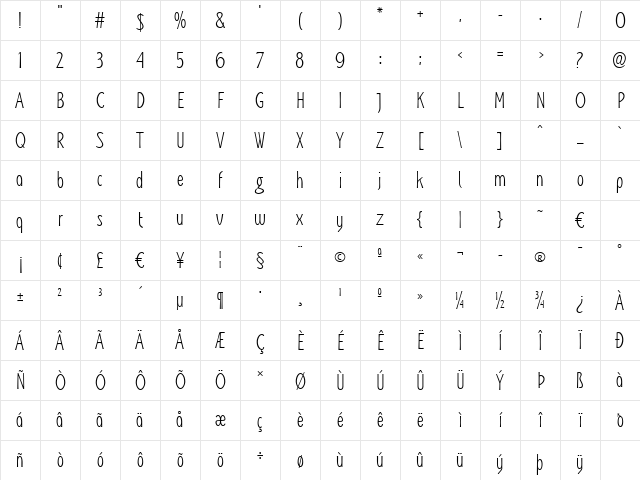
Artane Elongated BT Regular
Design Context for Artane Elongated BT
Artane Elongated BT is a composed and adaptable typeface that performs quietly and consistently across a wide range of design contexts.